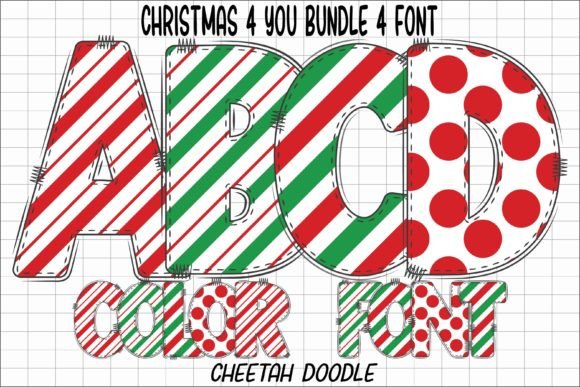
Introducing Christmas 4 You Font, a captivating and festive decorative color font designed by CHEETAH DOODLE. Get ready to elevate your Christmas-themed designs, shirts, crafts, and cards with this adorable and eye-catching font.
With its vibrant and colorful appearance, Christmas 4 You Font will instantly enhance any project you use it on. Imagine the joy and excitement it will bring to your holiday creations! Whether you're designing a Christmas party invitation, crafting personalized gifts, or creating stunning holiday graphics, this font is a must-have.
But that's not all - Christmas 4 You Font offers versatility and compatibility. The black version of this font is fully compatible with popular cutting machines like Cricut Design Space, making it easy for you to create intricate and precise designs. However, if you're looking for an extra pop of color, make sure to use the color version of this font with design programs like PhotoShop, Illustrator, Silhouette, and Inkscape.
What sets Christmas 4 You Font apart is its ability to evoke emotions and create a sense of joy and wonder. The cute and festive design captures the essence of Christmas, instantly transporting your audience to a world filled with warmth, love, and holiday cheer. Let your creativity run wild and spread the magic of Christmas with every project you create using this font.